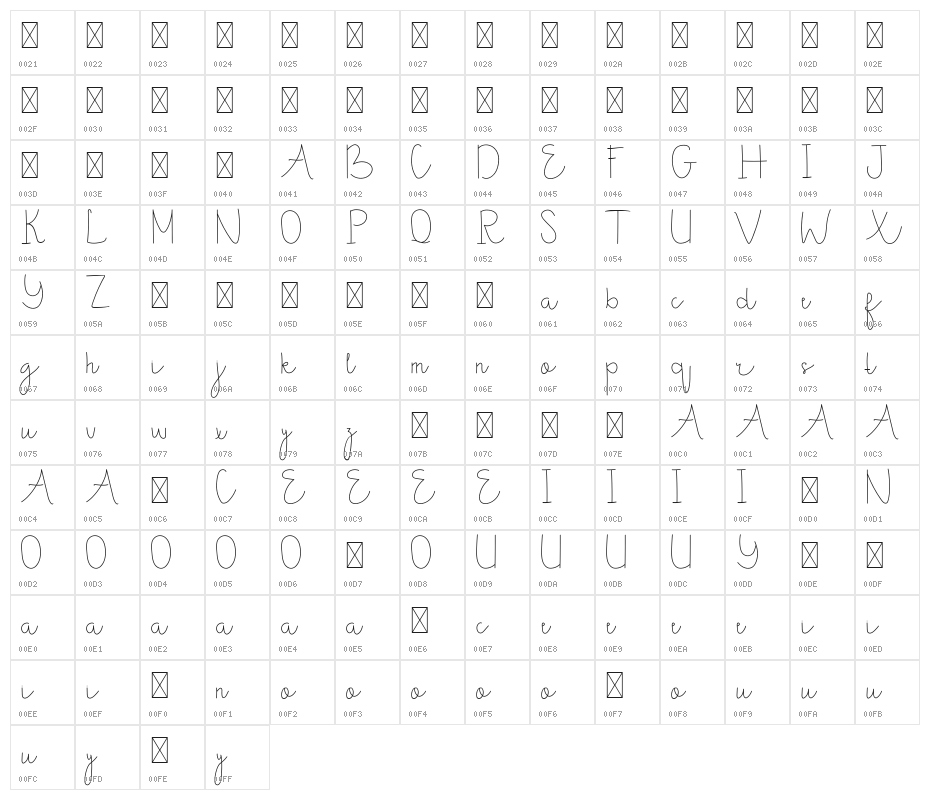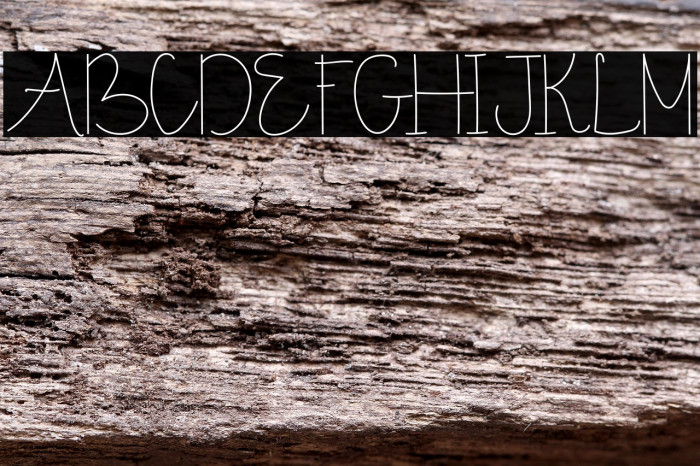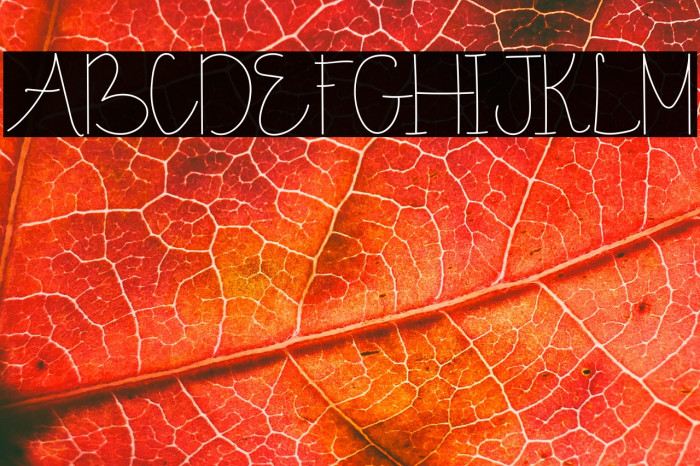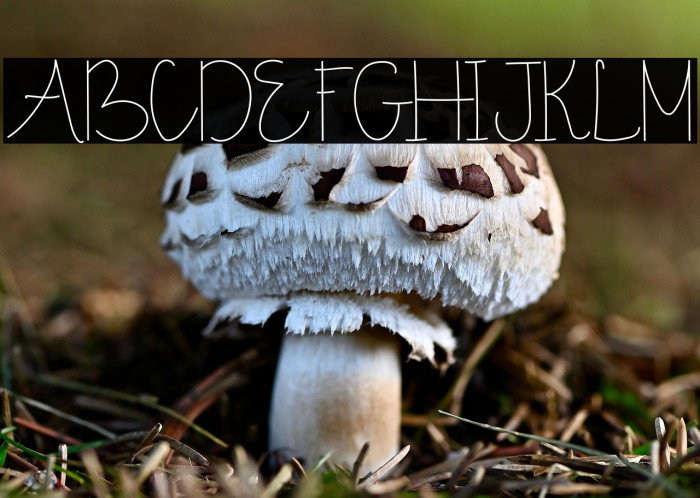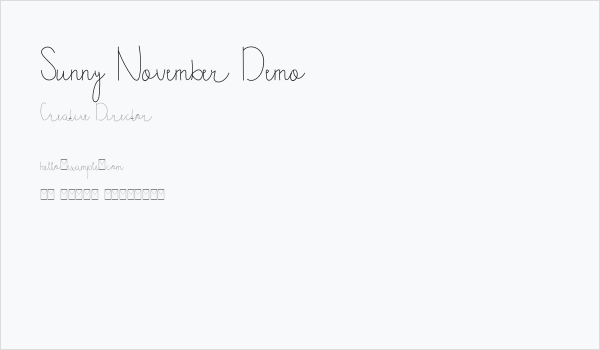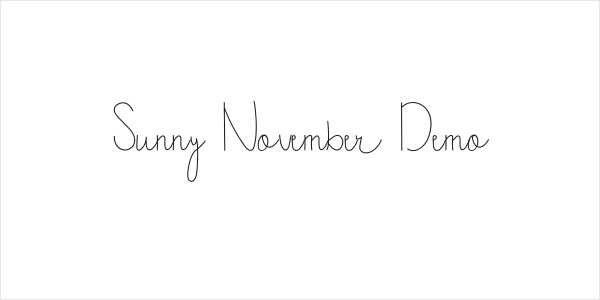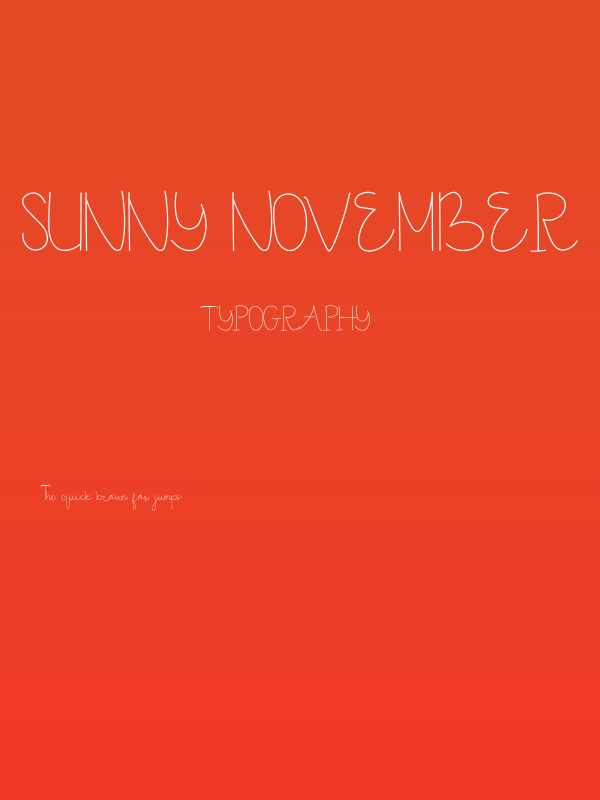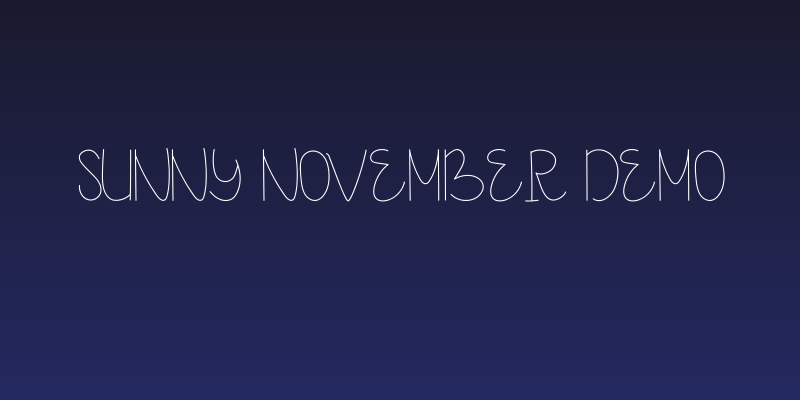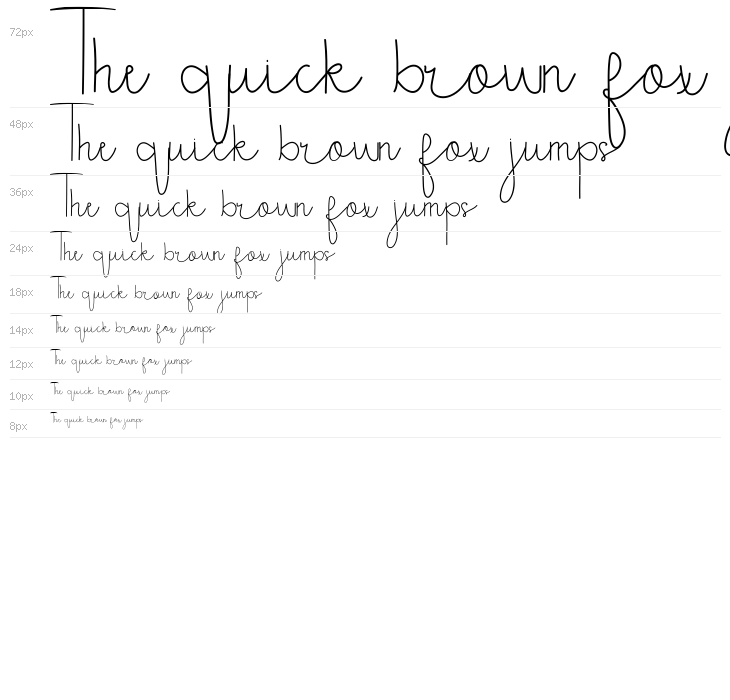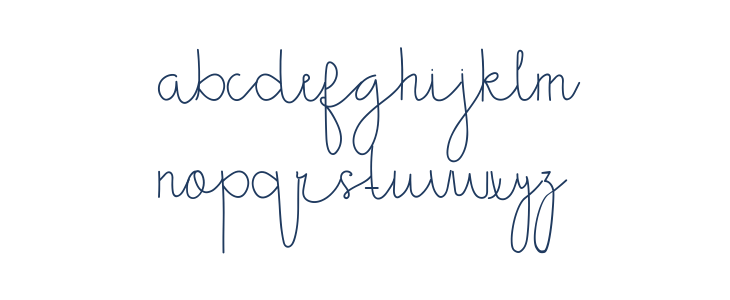
Sunny November Demo Font
Sunny November Demo Description
This font features a whimsical and playful style, characterized by its handwritten appearance. The uppercase letters are tall and slender, with a slight slant that adds a dynamic feel. The lowercase letters are more fluid and connected, resembling a casual script. The overall design is light and airy, with a consistent stroke width that gives it a clean and modern look. The characters are well-spaced, ensuring readability while maintaining an informal charm. This font is ideal for projects that require a personal touch, such as invitations, greeting cards, or creative branding.